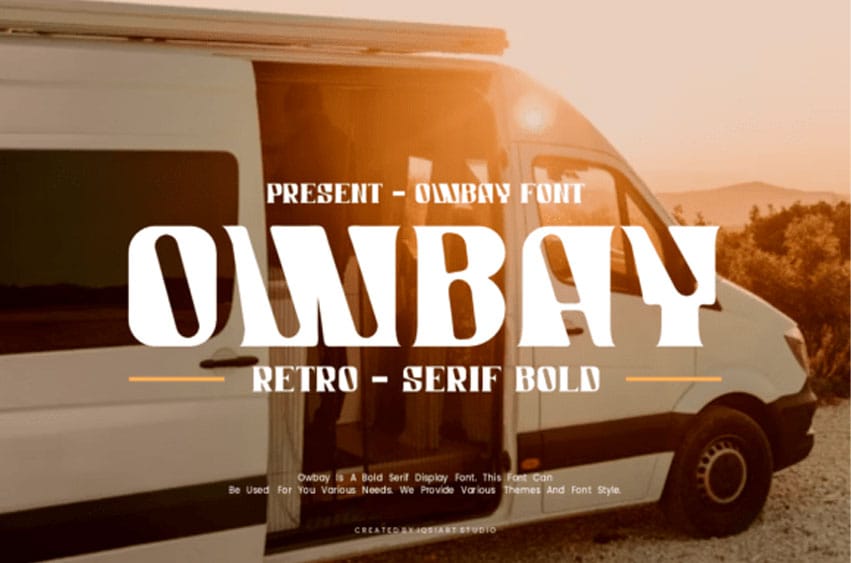
Owbay Font is a cute and charming serif font. Whimsical and a bit quirky, this font will brighten up each of your designs.
Add it confidently to your projects, and you will love the results.